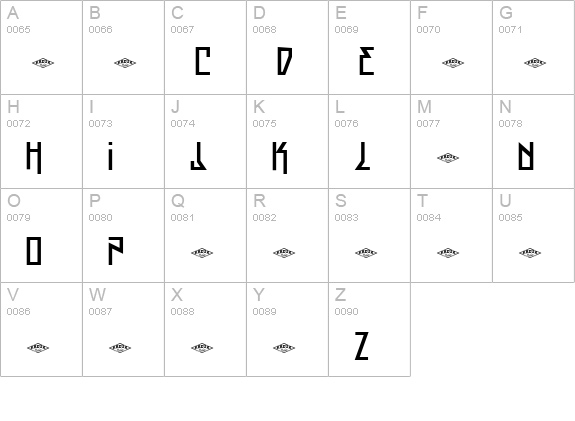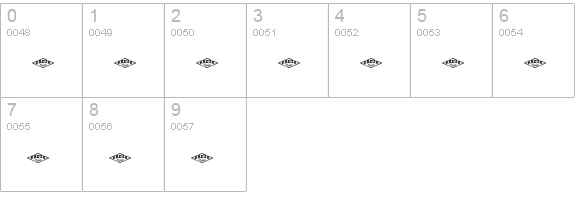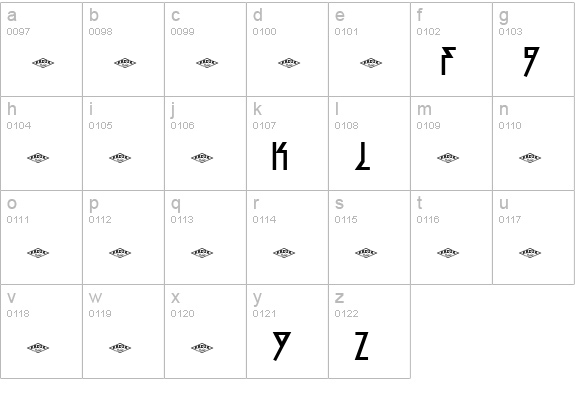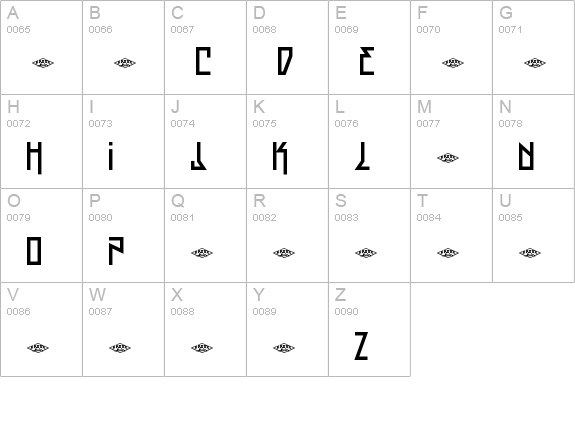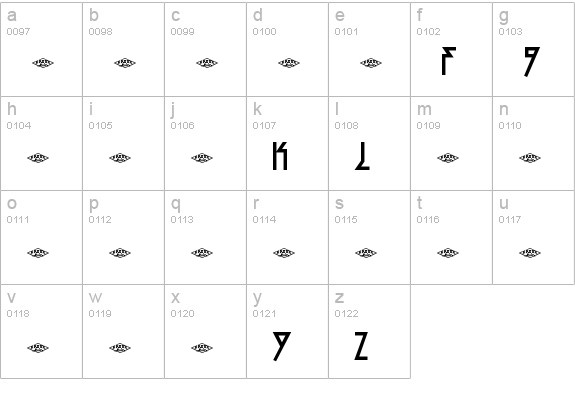
The OFF font is a captivating and versatile typeface that effortlessly combines elegance with a touch of modernity. Its sleek and clean lines make it highly legible, perfect for a wide range of design projects. Whether you're creating a sophisticated logo, designing a chic invitation, or crafting a professional presentation, the OFF font is sure to make a lasting impression. But what makes the OFF font truly unique is its availability for free. That's right, this stunning font can be downloaded at no cost, making it accessible to designers of all levels. Now, you can effortlessly add a touch of sophistication to your projects without breaking the bank. To get your hands on the OFF font, simply head over to FontsMarket.com, a reputable source for high-quality fonts. With just a few clicks, you'll have this remarkable typeface ready to enhance your designs. So, why wait? Download the OFF font today and elevate your creative endeavors to new heights.